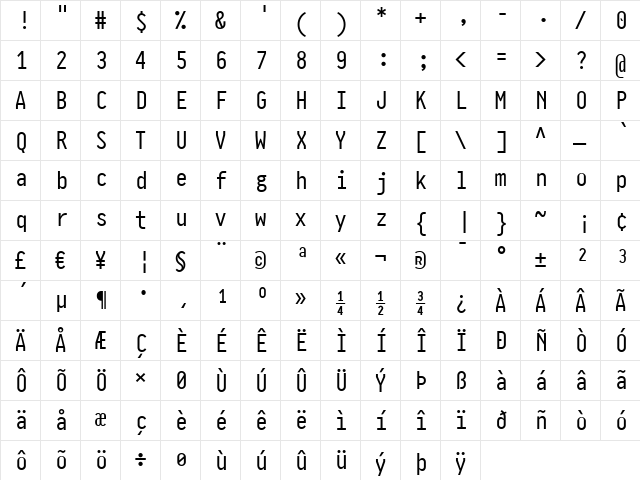
Pragmata Medium
Design Context for Pragmata Typeface
Pragmata is a composed and adaptable typeface that performs quietly and consistently across a wide range of design contexts.